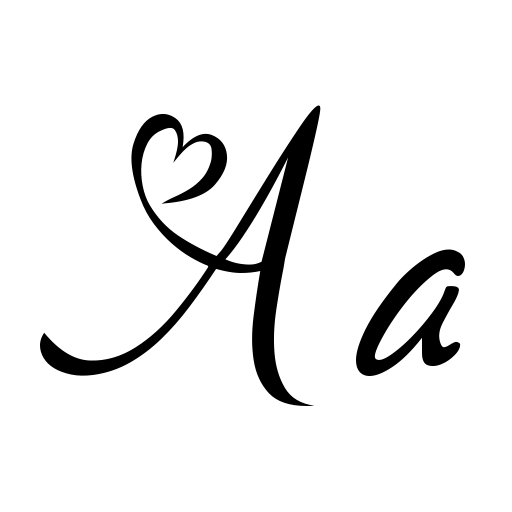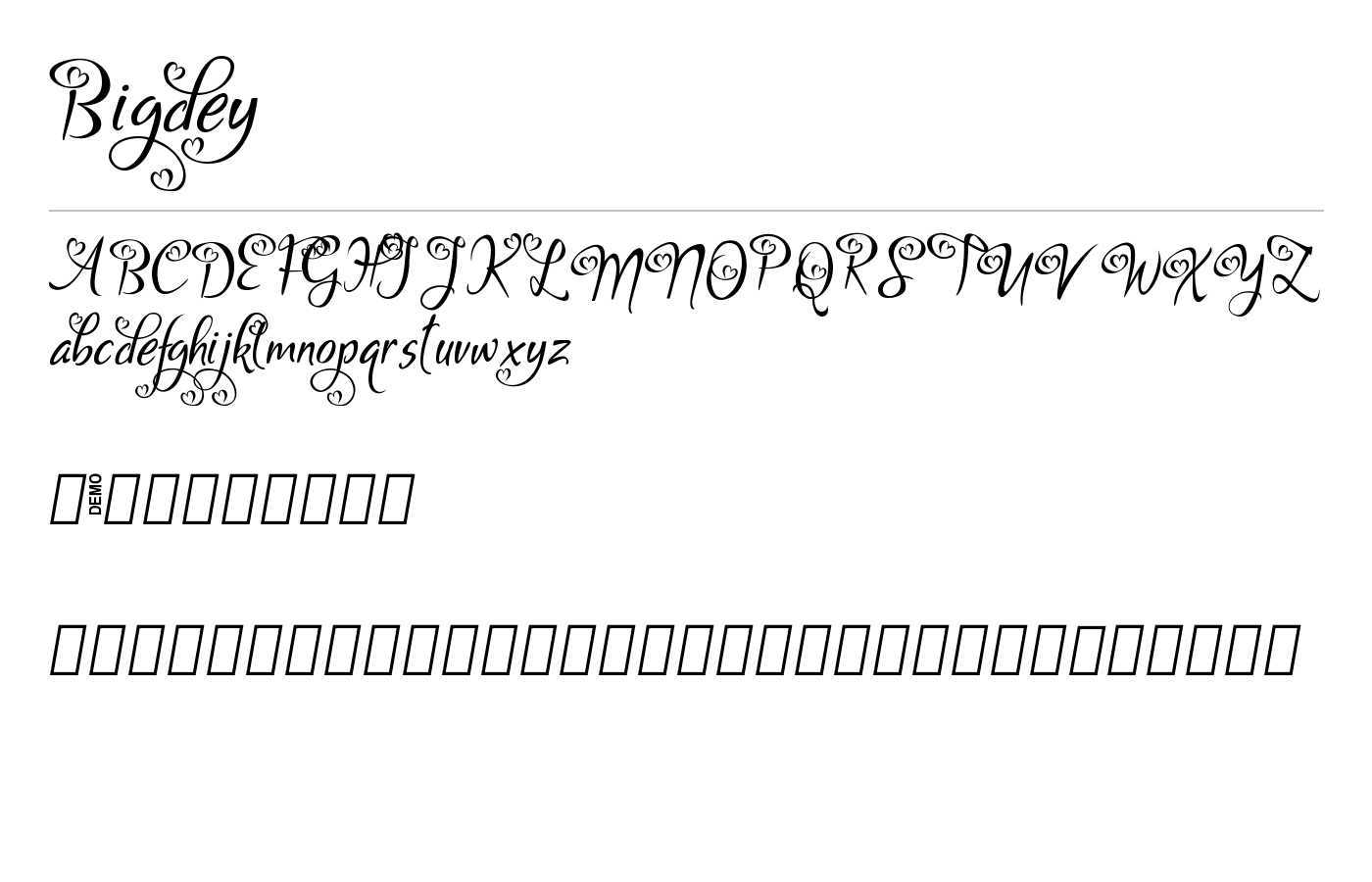
Bigdey is a decorative script font featuring elegant, flowing letterforms adorned with charming heart-shaped swashes. Its delicate strokes and playful curves convey a romantic, whimsical feel perfect for invitations, greeting cards, and feminine branding. This font shines in display use where its ornamental style can add a touch of graceful charm and personality.
Bigdey Font
About Bigdey Font
| Font family | Bigdey Font |